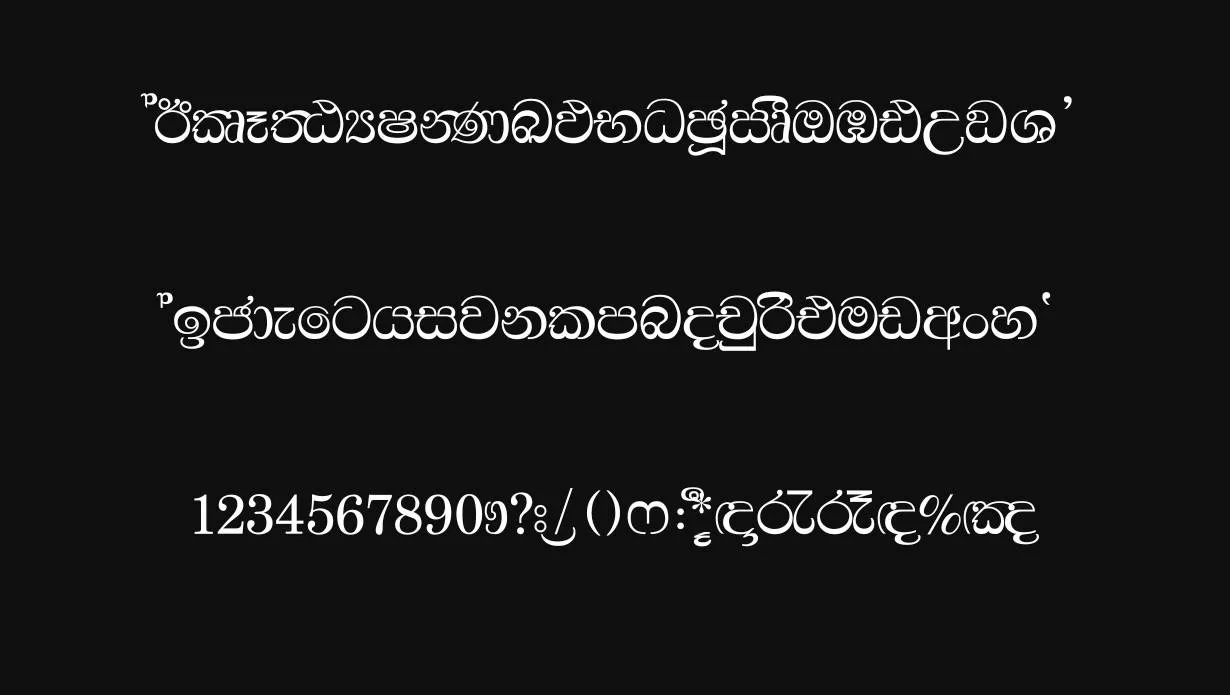
The FMBindumathi font is like friendly letters that want to say hello. With its rounded and open design, it adds a touch of friendliness to your text. This font is perfect for projects that aim to create a welcoming and approachable atmosphere.
Whether you’re designing a community flyer or creating a sign for a friendly gathering, the FMBindumathi font adds a warm and inviting feel to your words, making them as friendly as a cheerful wave.